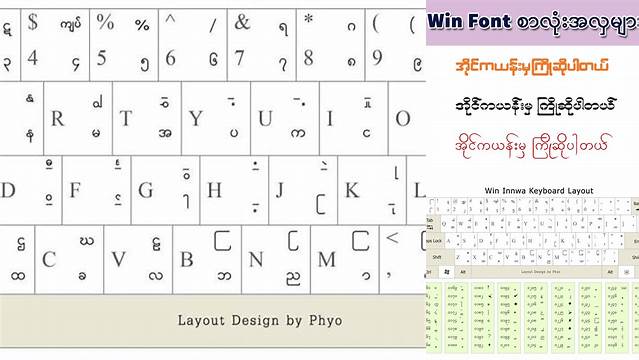
Understanding the Win Innwa Myanmar Font
Hey guys! Let's dive into the wonderful world of the Win Innwa Myanmar font. If you're looking to add a touch of authentic Burmese calligraphy to your digital projects, then this font is definitely something you'll want to get your hands on. The Win Innwa Myanmar font is a popular choice for many reasons. It’s designed to represent the unique and beautiful script of the Myanmar language, making it ideal for anyone working with Burmese text. Whether you're creating websites, designing marketing materials, writing articles, or even just sending a message to a friend in Myanmar, having the right font makes all the difference. The elegance and readability of the Win Innwa font are what make it stand out. It captures the traditional essence of Myanmar's script while being perfectly functional for modern digital use. Think about it: a beautifully rendered Burmese phrase can convey so much more than just words; it carries cultural significance and visual appeal. This font helps you achieve that. We'll explore how to download and use it, ensuring you can seamlessly integrate it into your workflow. So, stick around as we unpack everything you need to know about the Win Innwa Myanmar font, making your design process a whole lot smoother and your final output a whole lot more impactful. It's all about making your content look great and feel authentic, right?
Why Choose Win Innwa for Burmese Text?
So, why should you specifically opt for the Win Innwa Myanmar font when you need to display Burmese text? Great question! The world of fonts can be a bit overwhelming, but Win Innwa has carved out a special niche for itself, especially for those working with the Myanmar language. One of the primary reasons is its authenticity and cultural representation. This font is crafted to accurately reflect the traditional aesthetics of the Burmese script. It’s not just about displaying letters; it’s about preserving and showcasing the unique curves, strokes, and overall flow that are characteristic of Myanmar's rich linguistic heritage. For designers, writers, and anyone creating content for a Burmese audience, using a font like Win Innwa ensures that your text is not only readable but also culturally sensitive and appropriate. Imagine using a generic font for a traditional script – it just wouldn't have the same impact or respect. Win Innwa bridges that gap. Furthermore, readability is a huge factor. While many fonts might look pretty, they aren't always easy to read, especially on screens. The Win Innwa Myanmar font strikes a fantastic balance between aesthetic appeal and practical legibility. The characters are clear, well-defined, and spaced appropriately, which is crucial for longer texts or when using smaller font sizes. This means your readers won't struggle to decipher the words, leading to a better user experience. It’s designed with both form and function in mind, making it a versatile tool for a wide range of applications. Whether it's for official documents, creative projects, or educational materials, Win Innwa ensures your Burmese content looks professional and is easily understood. Plus, the fact that it's often available for free download is a massive bonus for budget-conscious individuals and organizations. So, if authenticity, readability, and professional presentation are what you're after for your Burmese text, Win Innwa is a top-tier choice, guys.
The Importance of Myanmar Fonts Online
In today's digital age, the way we present information online is super important, and that includes the fonts we use. When it comes to the Myanmar language, having access to high-quality, properly designed fonts like the Win Innwa Myanmar font is not just a nice-to-have; it's practically essential. Think about it: the internet is a global village, and businesses, organizations, and individuals want to reach audiences wherever they are. For those communicating in or targeting the Myanmar market, using authentic and readable Burmese fonts is key to effective communication. A poorly rendered font can make your website look unprofessional, your documents hard to read, and your overall message get lost in translation – or worse, misinterpretation. Win Innwa Myanmar font download becomes crucial here because it provides a reliable way to ensure your content is displayed correctly. It helps maintain the integrity of the language and its cultural nuances. Without appropriate fonts, the beauty and complexity of the Burmese script can be lost, potentially alienating your audience. Moreover, in the realm of search engine optimization (SEO), font choice can indirectly play a role. While search engines primarily crawl text, the user experience on a page – which is influenced by readability – is a ranking factor. If users bounce because your text is unreadable, that's a negative signal. Therefore, ensuring your Myanmar text is presented clearly using fonts like Win Innwa contributes to a better user experience, potentially improving engagement and time on site. It signals professionalism and respect for the language and its speakers. So, whether it's for e-commerce, news portals, educational platforms, or government websites, the availability and use of dedicated Myanmar fonts like Win Innwa are vital for establishing a strong and credible online presence. It’s all about connecting effectively with your target audience, guys.